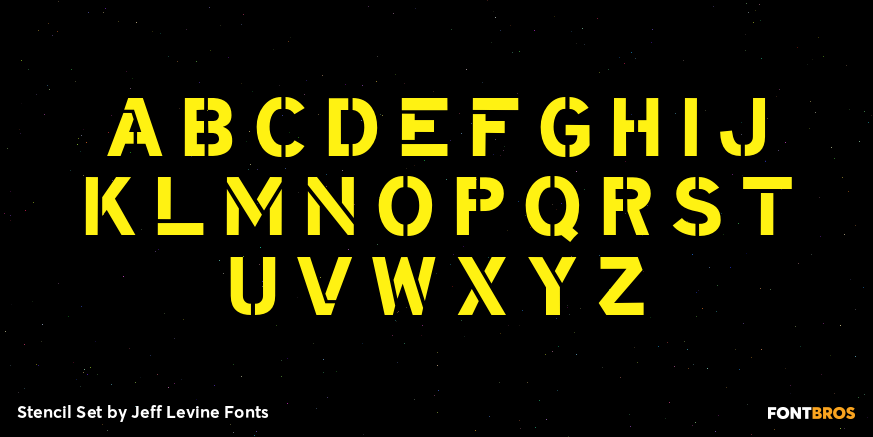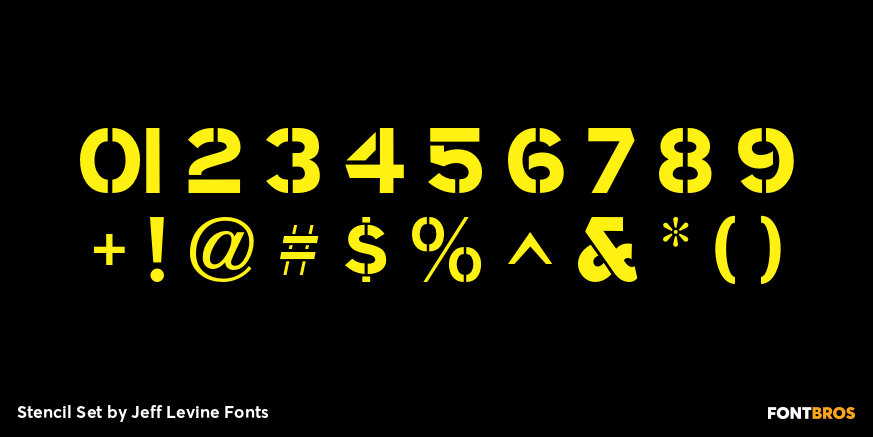
Stencil Set
Stencil Set JNL takes the 2011 release of Stencil Mark JNL (a spur-serif letter based on a vintage set of brass stencils) and transitions it to the design of a clean, bold sans typeface.